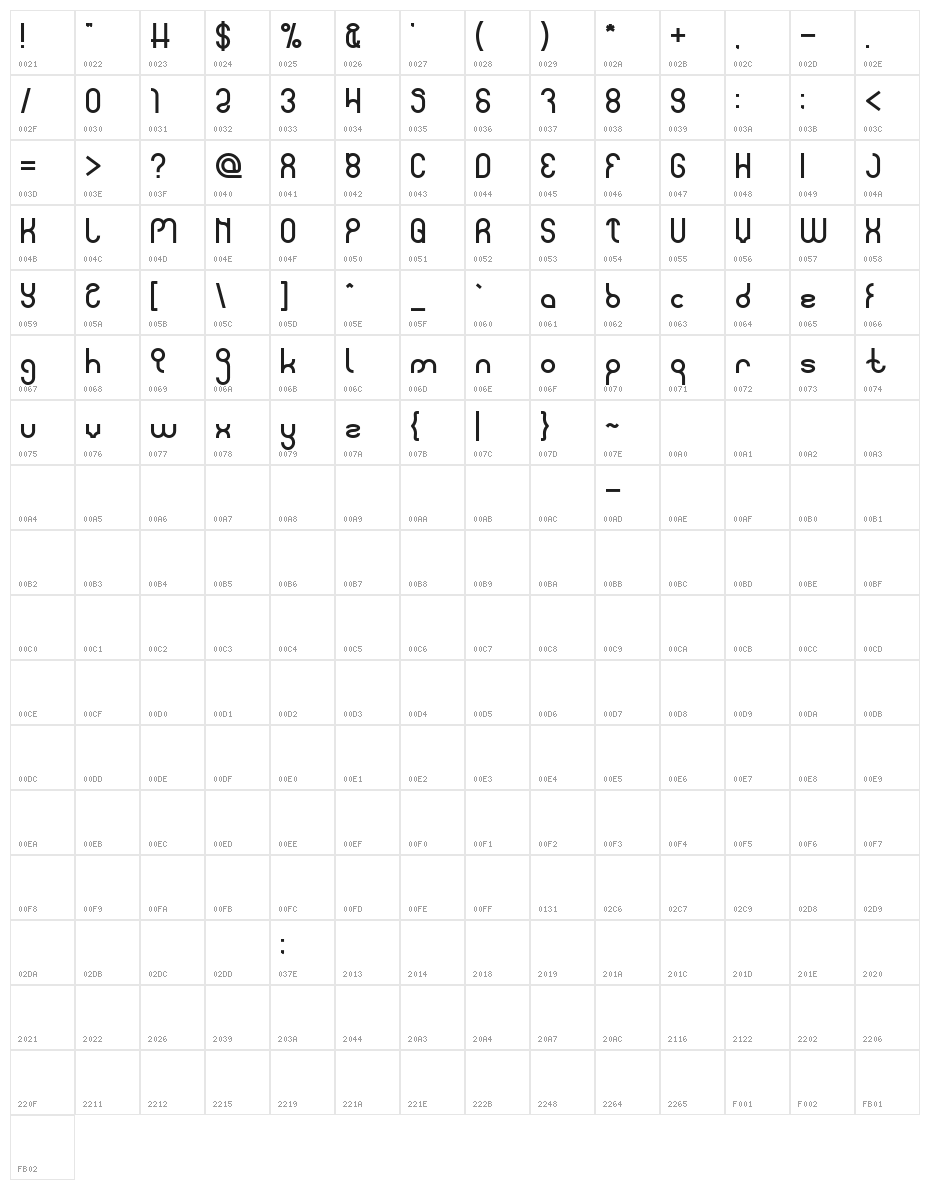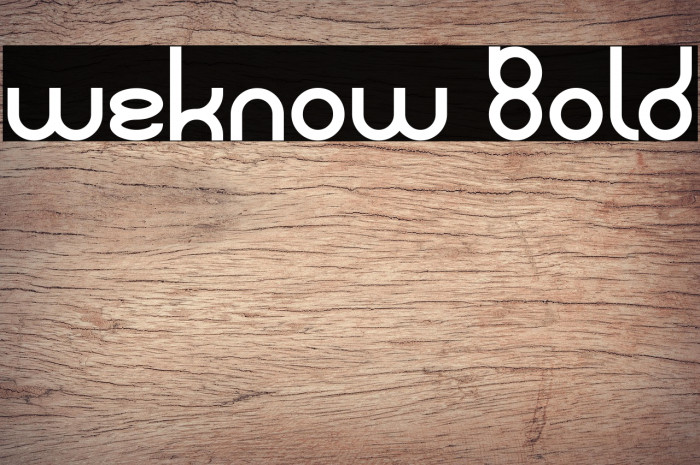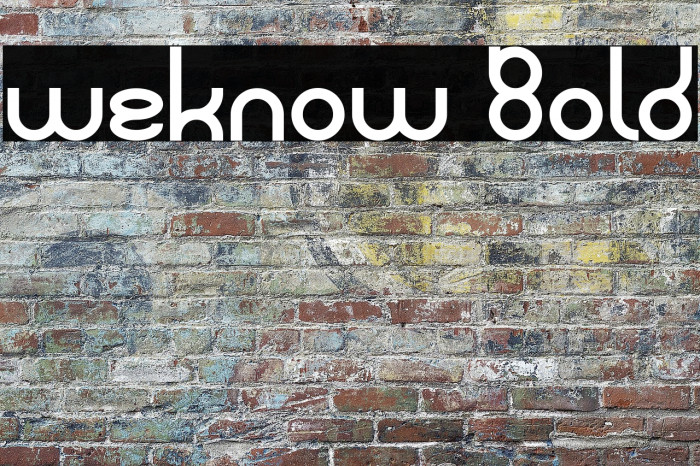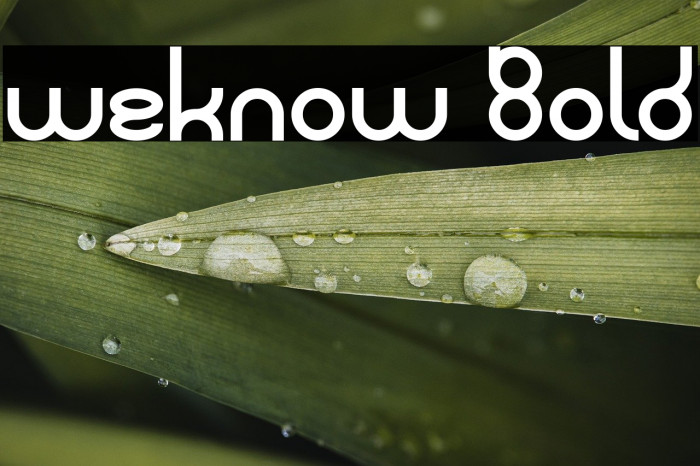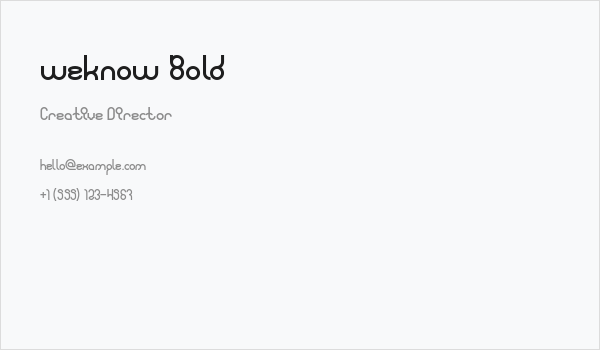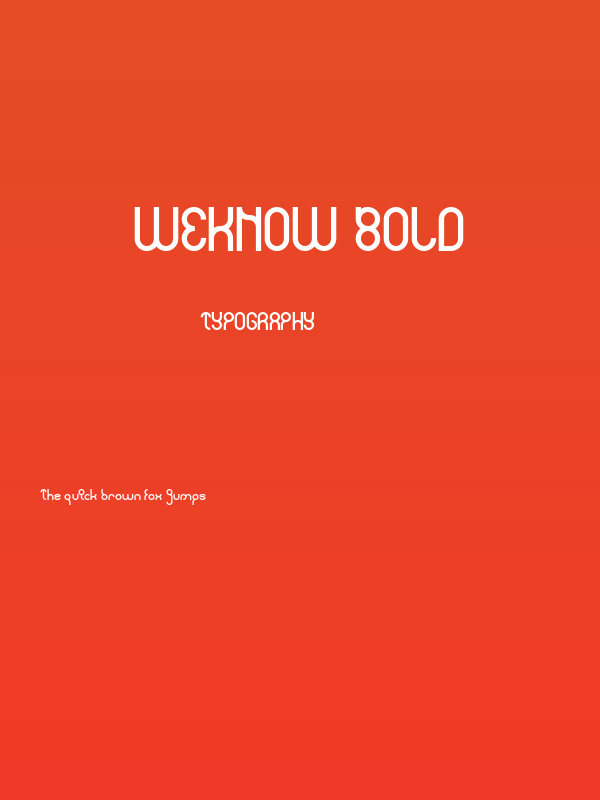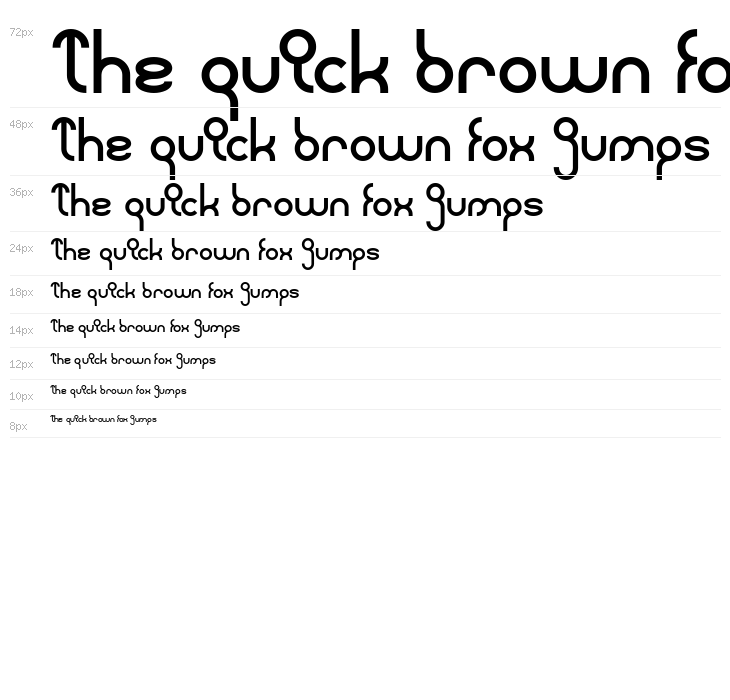
weknow Bold Font
weknow Bold Description
This font features a bold and modern design with a unique geometric style. The characters are constructed with a combination of straight lines and curves, creating a futuristic and artistic appearance. The uppercase and lowercase letters maintain a consistent height, while the numbers and special characters follow the same design principles. The font's distinctiveness is highlighted by its rounded edges and symmetrical forms, making it stand out in any design project. Its bold weight ensures high visibility and impact, suitable for various creative applications.
| Proposed Projects | Ideal for branding, logos, posters, and digital media where a modern and artistic touch is desired. |